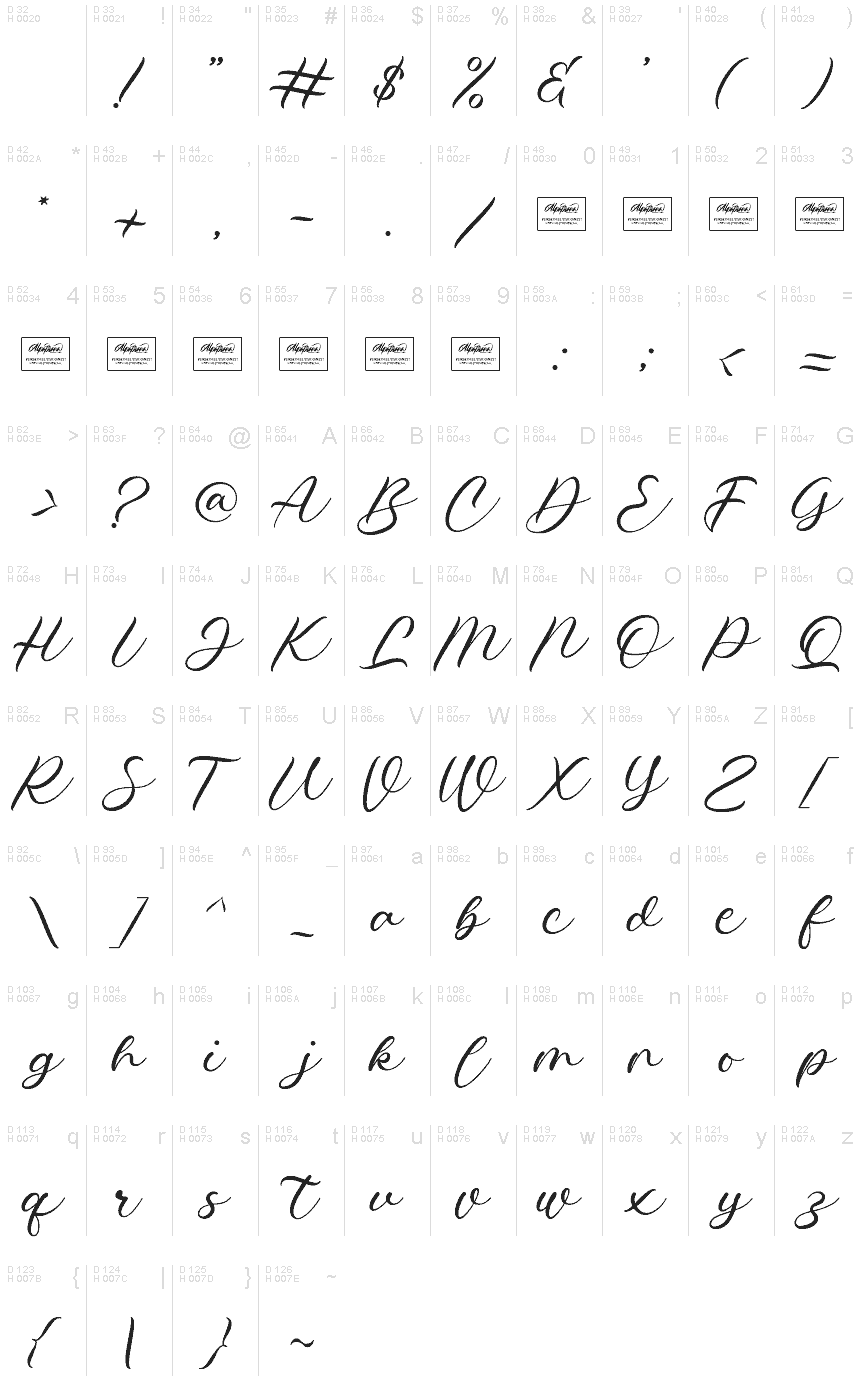
Courting
Courting font is an elegant handwritten script font by Alpaprana Studio. Expressive and sophisticated but with a natural flow, it channels an artistic, romantic feel combined with a modern trendy style. This flowing font features rounded strokes which are easy on the eyes in any project you might come up with.